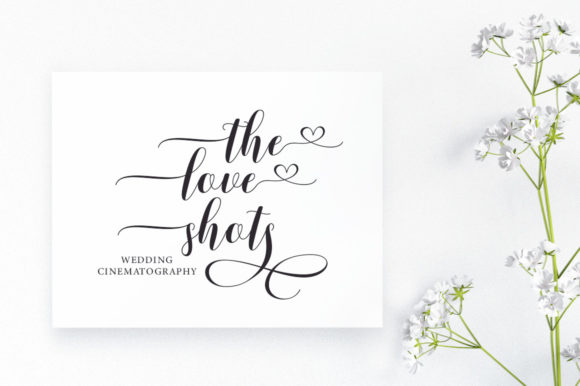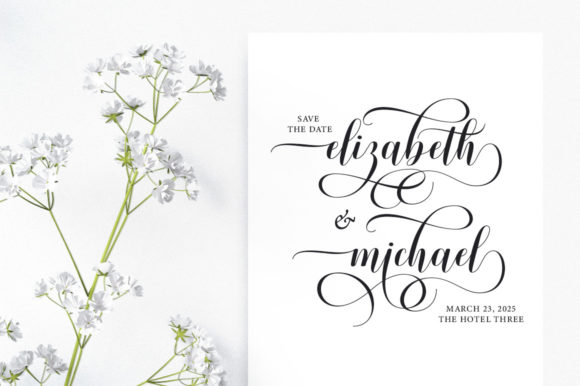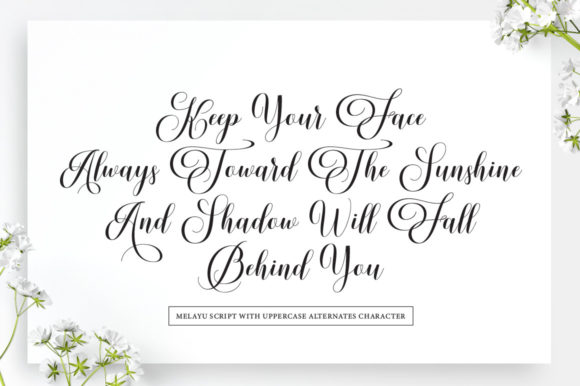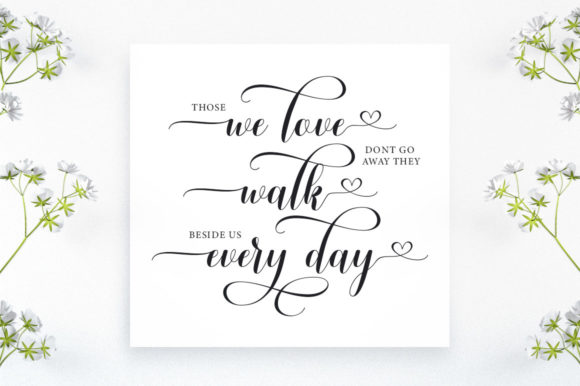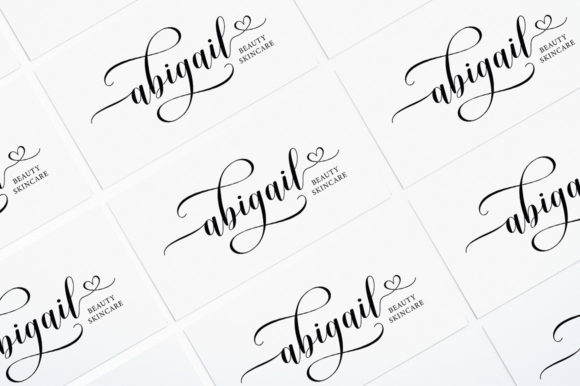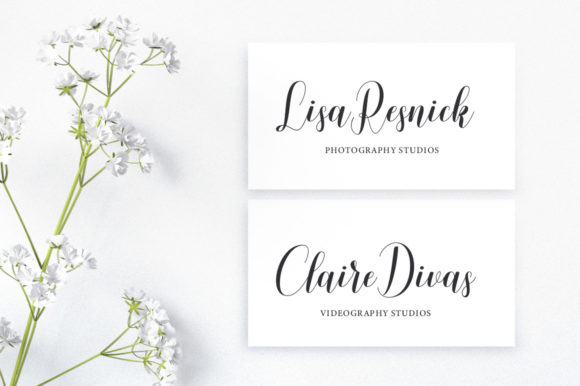
About Melayu Script Font
Melayu Script is a lovely script font that features a varying baseline, smooth, modern and elegant touches. Use it for projects that need lovely, romantic typography! This font is PUA encoded, which means you can access all of the glyphs and swashes with ease!